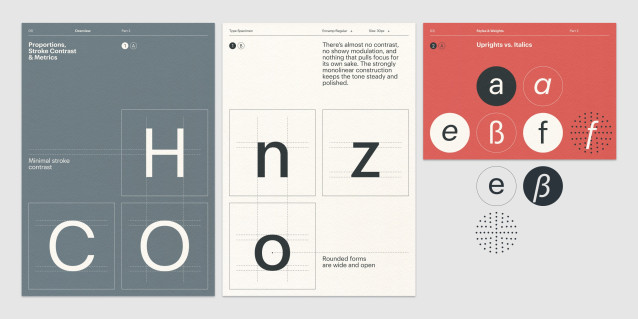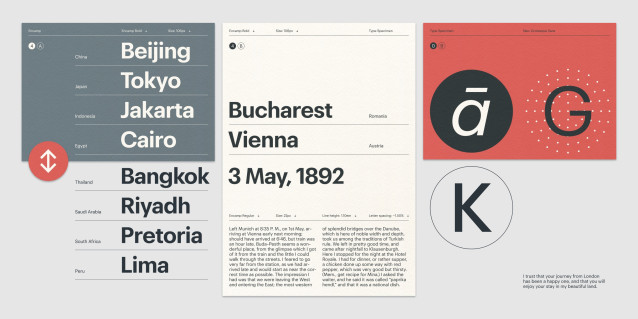
Encamp Font
Encamp Font is a geometric sans-serif designed by Ruls Do Paolo and published by Punchform in 2025. The family consists of 18 styles, which include nine upright weights from Thin to Black, along with matching italics. This variety helps create a clear typographic hierarchy across sizes. OpenType features include Stylistic Alternates, Case-Sensitive Forms, Tabular Figures, Superscripts and Subscripts, and Fractions. Encamp covers the Latin script and supports 128 languages.